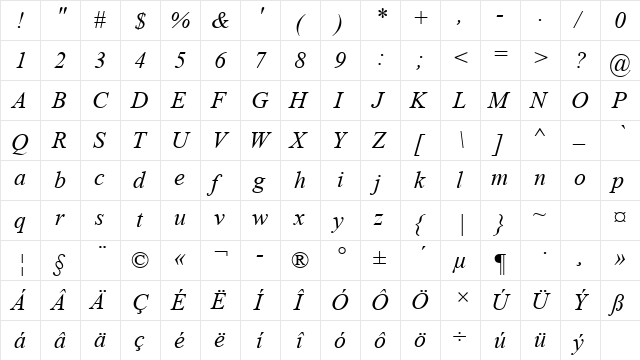
Times New Roman CE Italic Font Preview
Times New Roman CE Italic
Design Context for Times New Roman CE Typeface
Times New Roman CE takes a measured approach to typography — its balanced proportions and neutral character make it a reliable workhorse for both digital and print work. Its italic angle brings a sense of urgency and motion to the letterforms.
Pro Tip: Try Times New Roman CE for annotation and caption copy alongside an upright companion — the contrast in angle creates a dynamic but ordered typographic system.